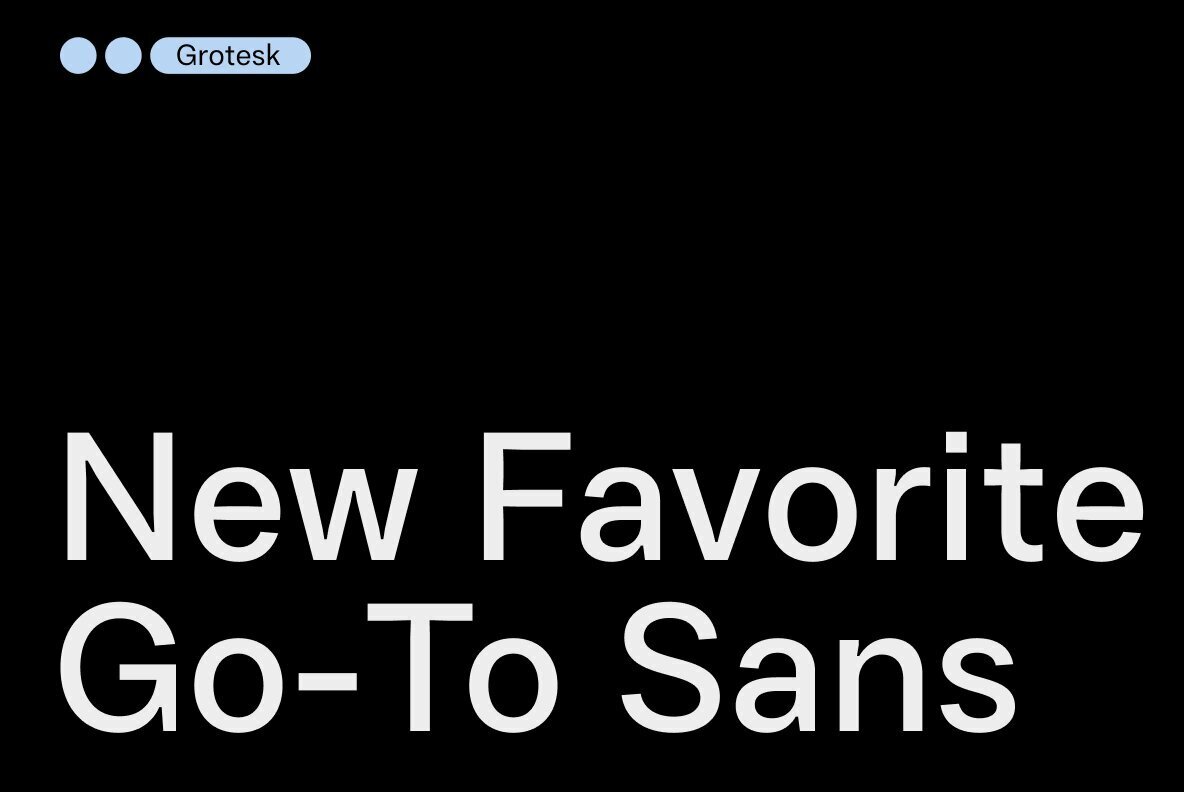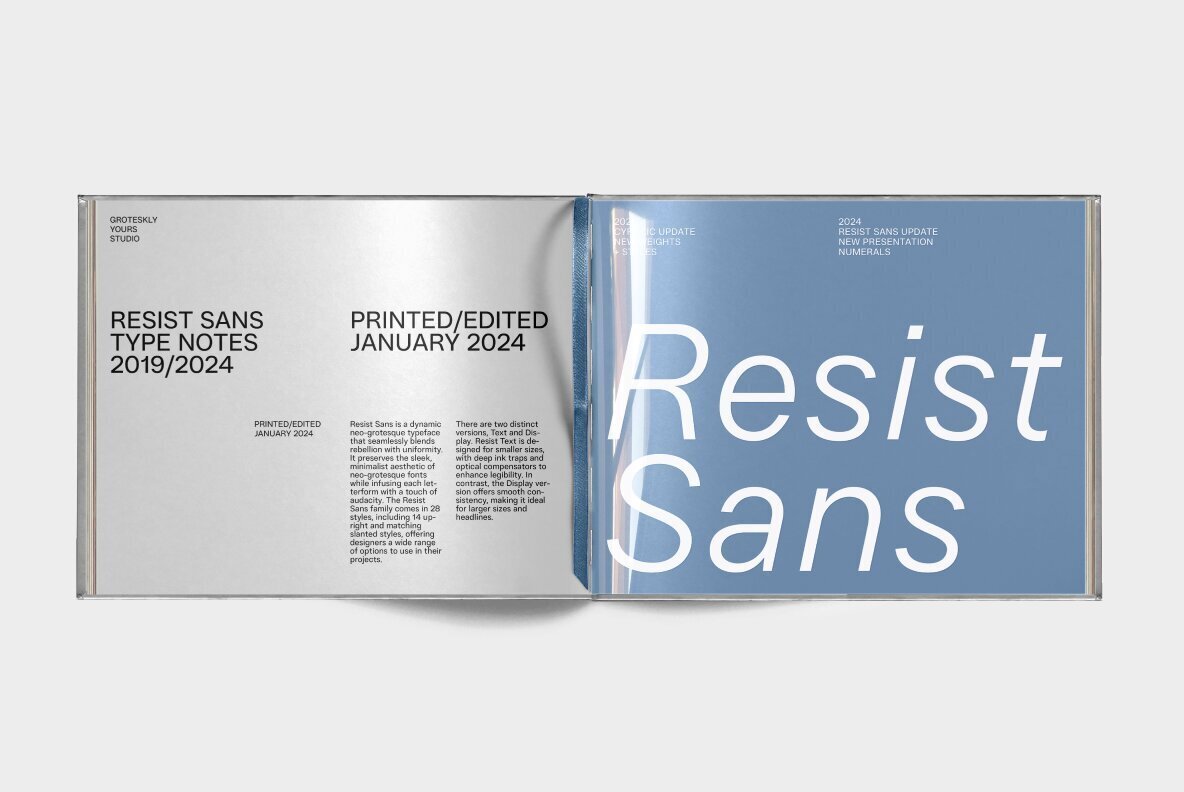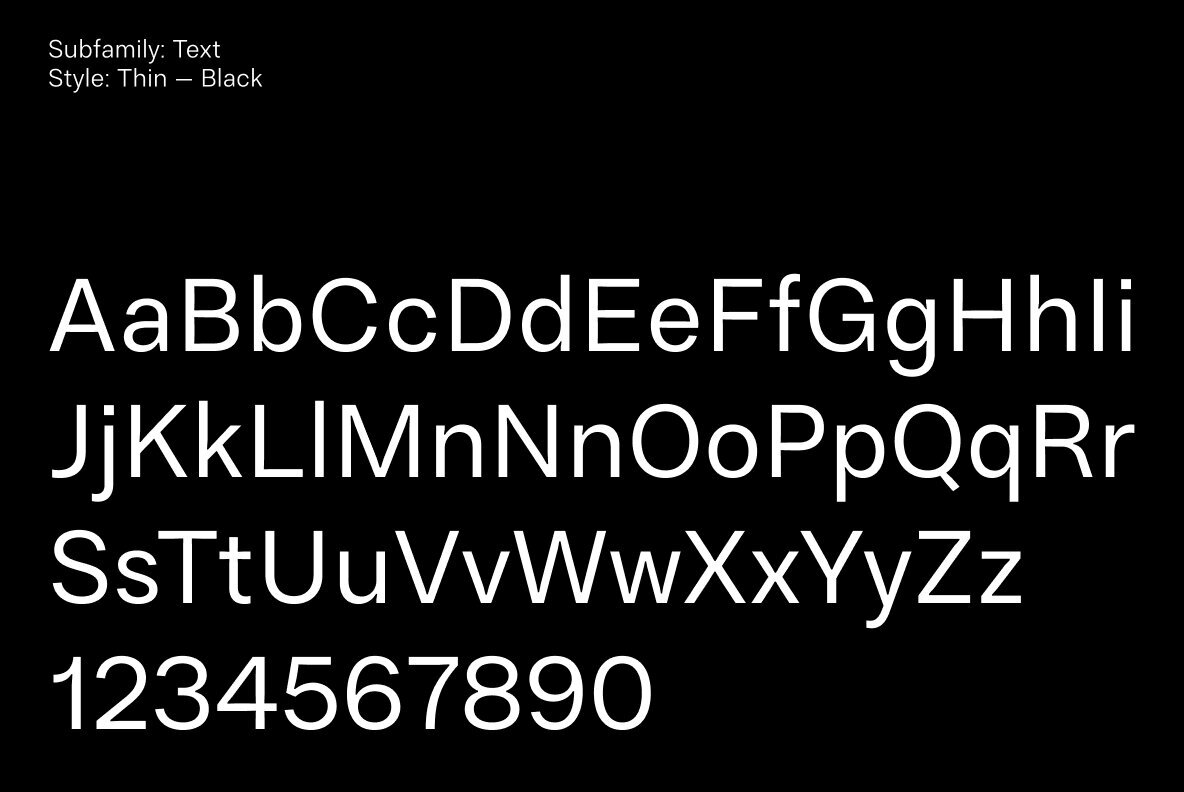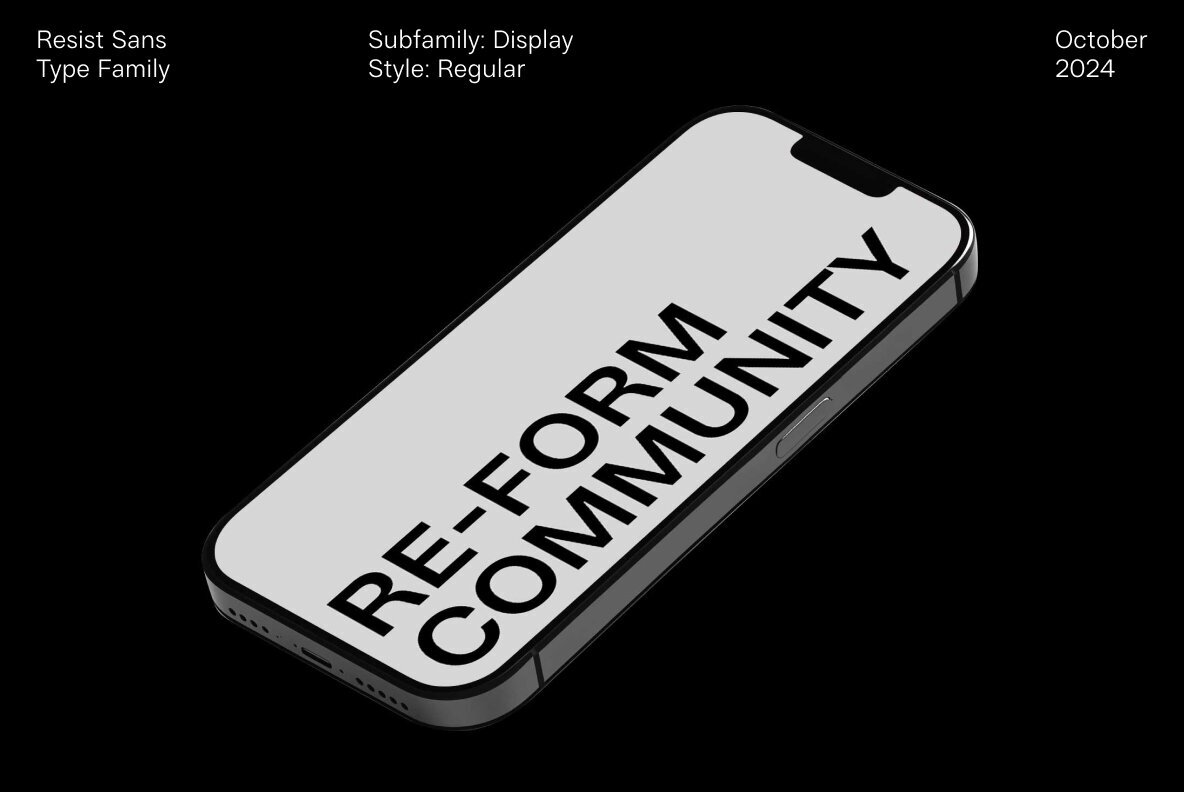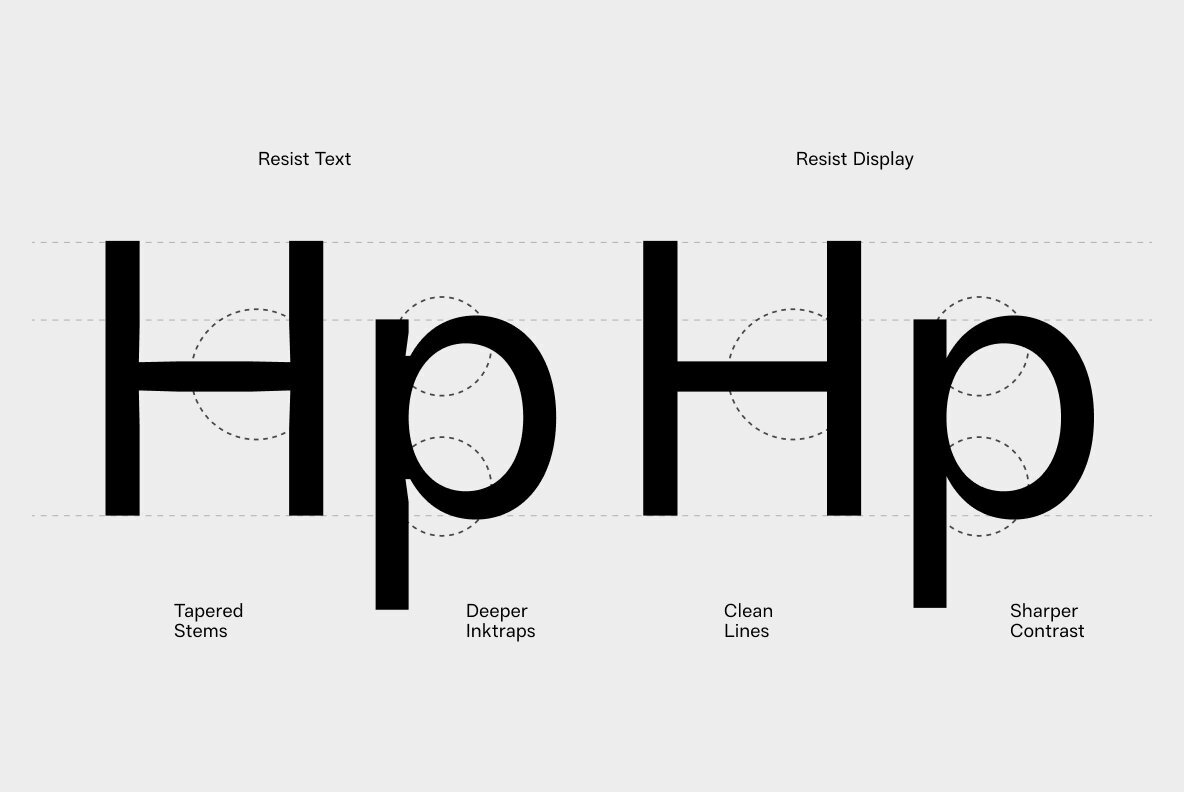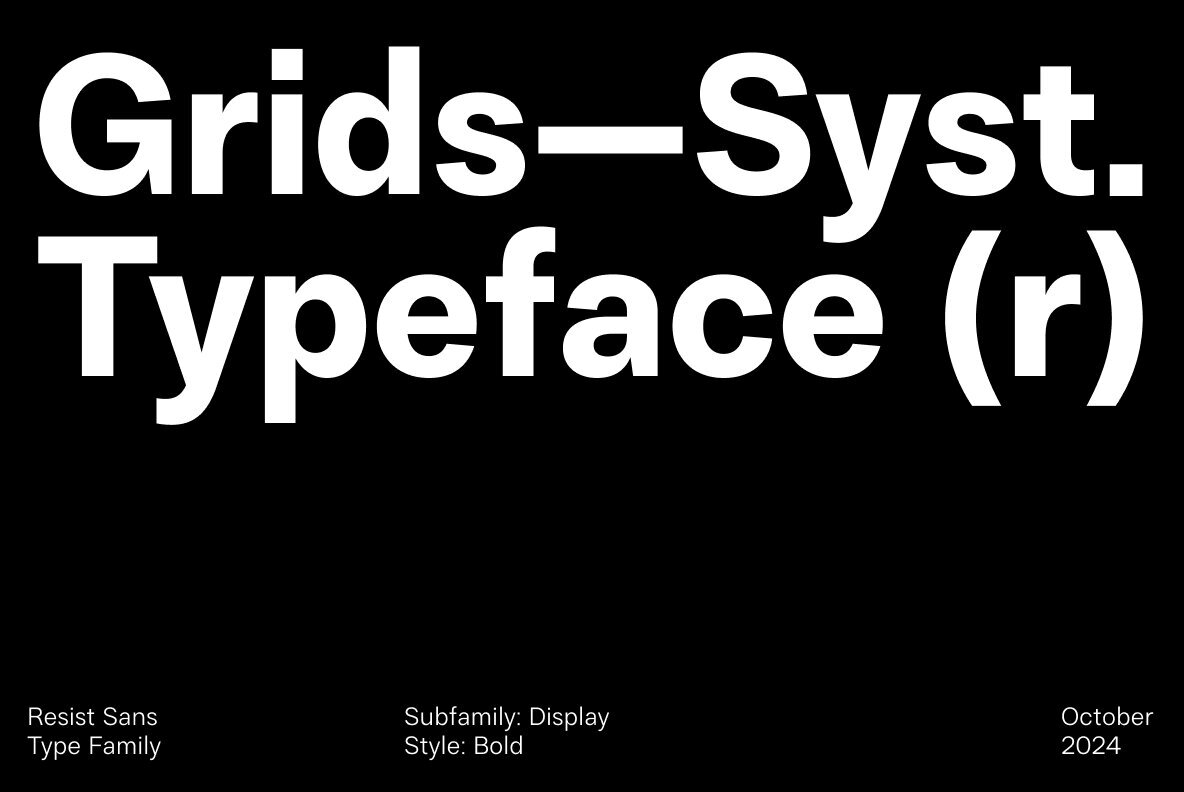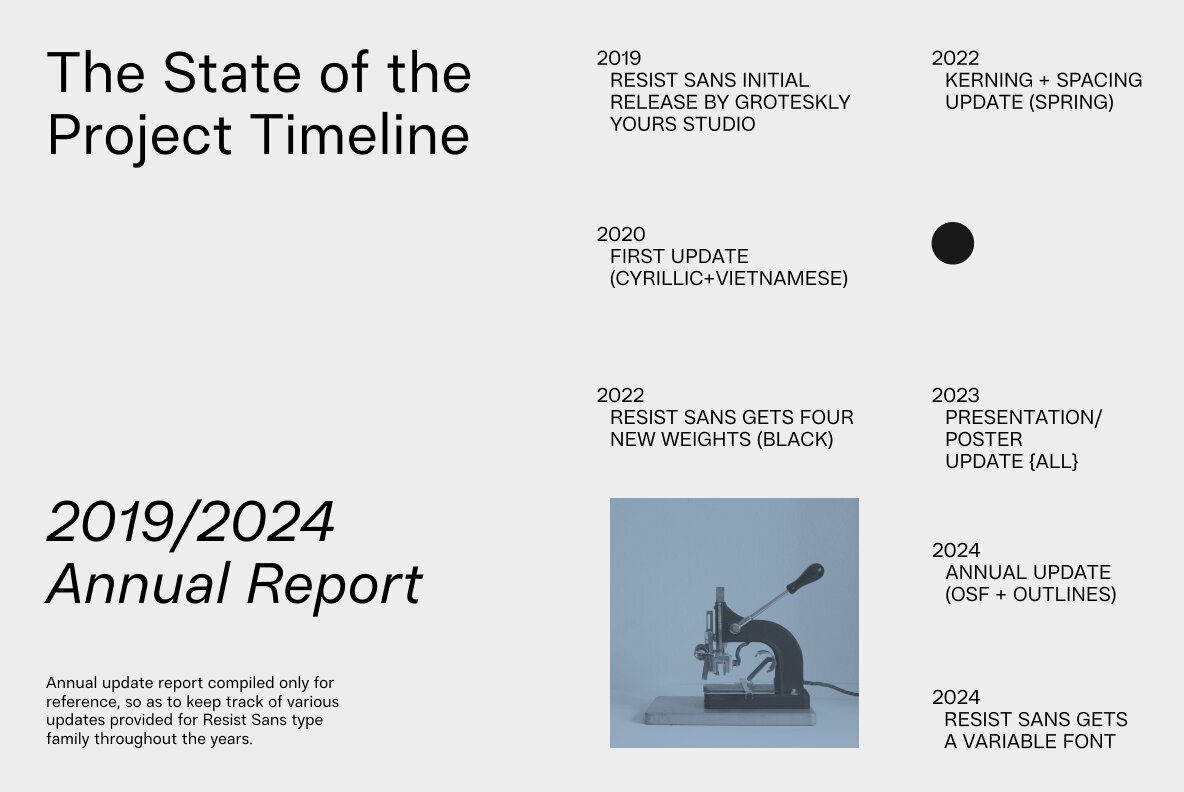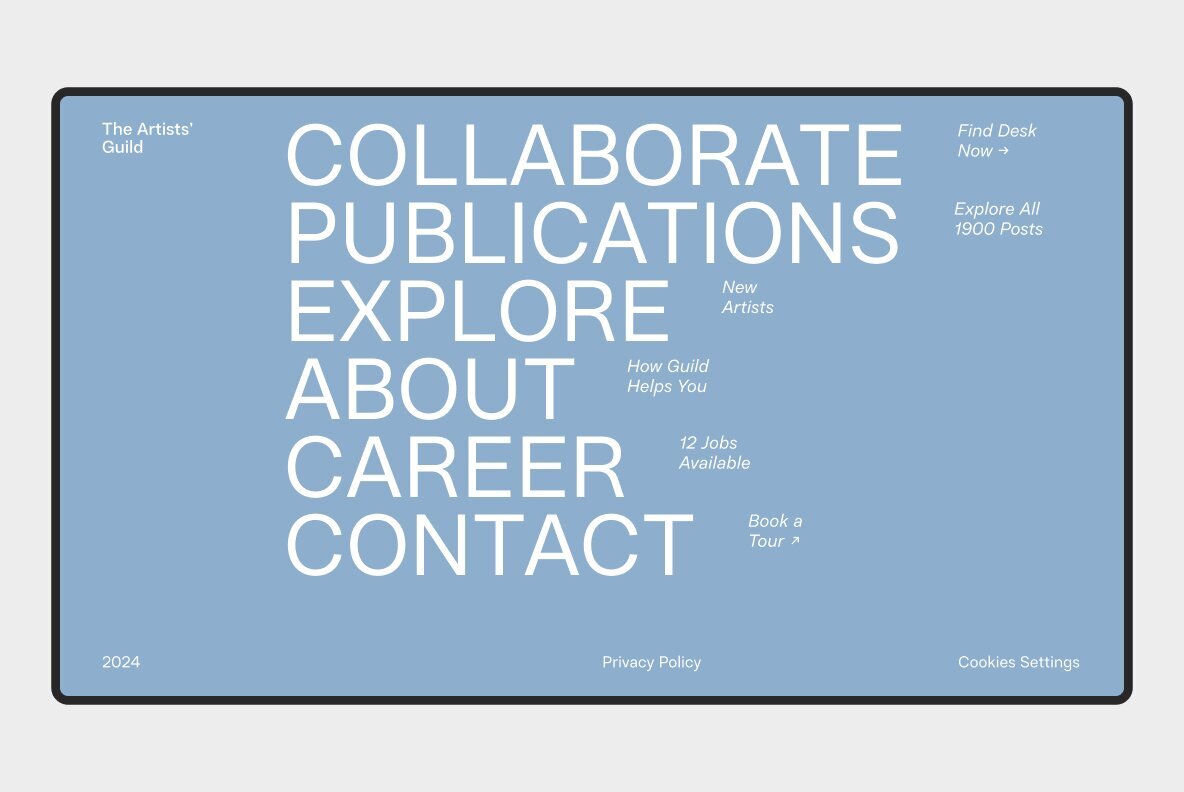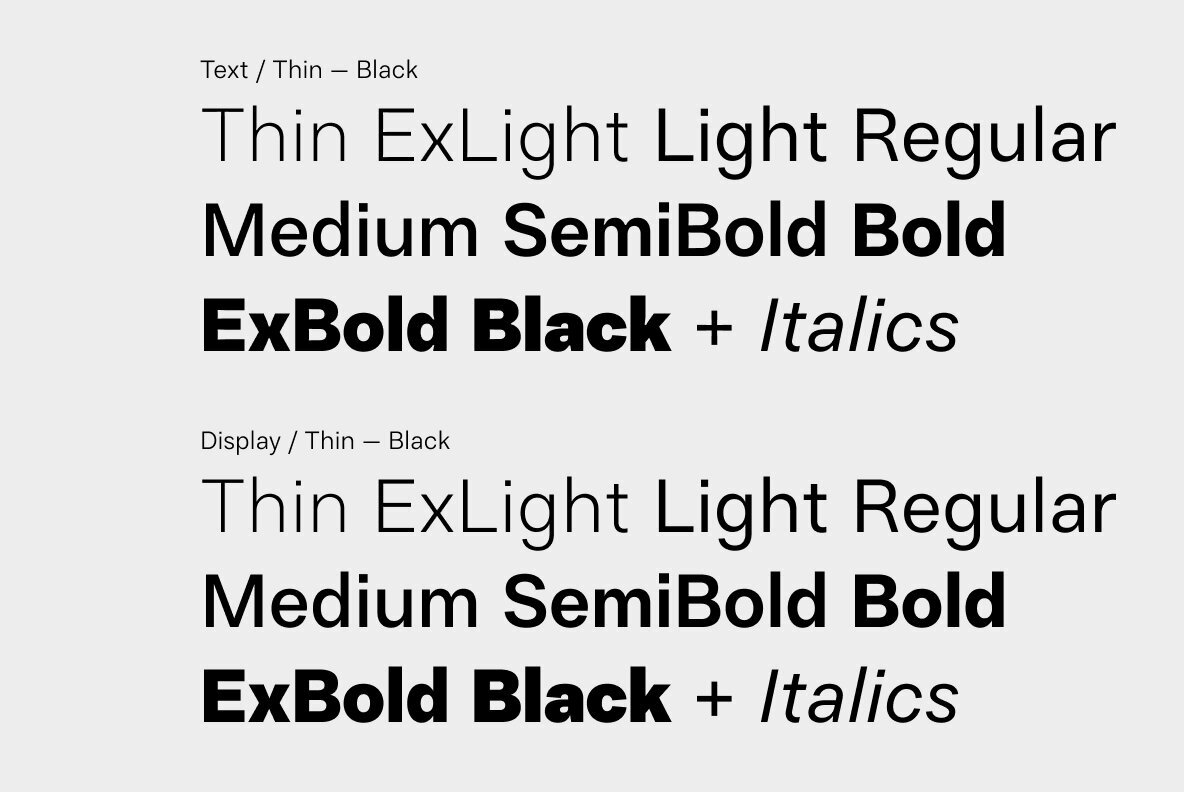
Resist Sans Font
Resist Sans is a free-spirited neo-grotesque that embodies both the innate desire for revolt and a tendency towards uniformity. While Resist Sans preserves the neat, minimalist look which is associated with neo-grotesques, it also accentuates the tentativeness of each letter form. The name, too, hints at the rebellious character of the typeface. Resist Sans comes in 28 styles (14 uprights and matching obliques).
Resist Sans is truly multilingual. It supports most European and Latin-languages and features Extended Cyrillic, which gives access to such languages as Ukrainian, Bulgarian, Serbian, Russian, Macedonian and many more.